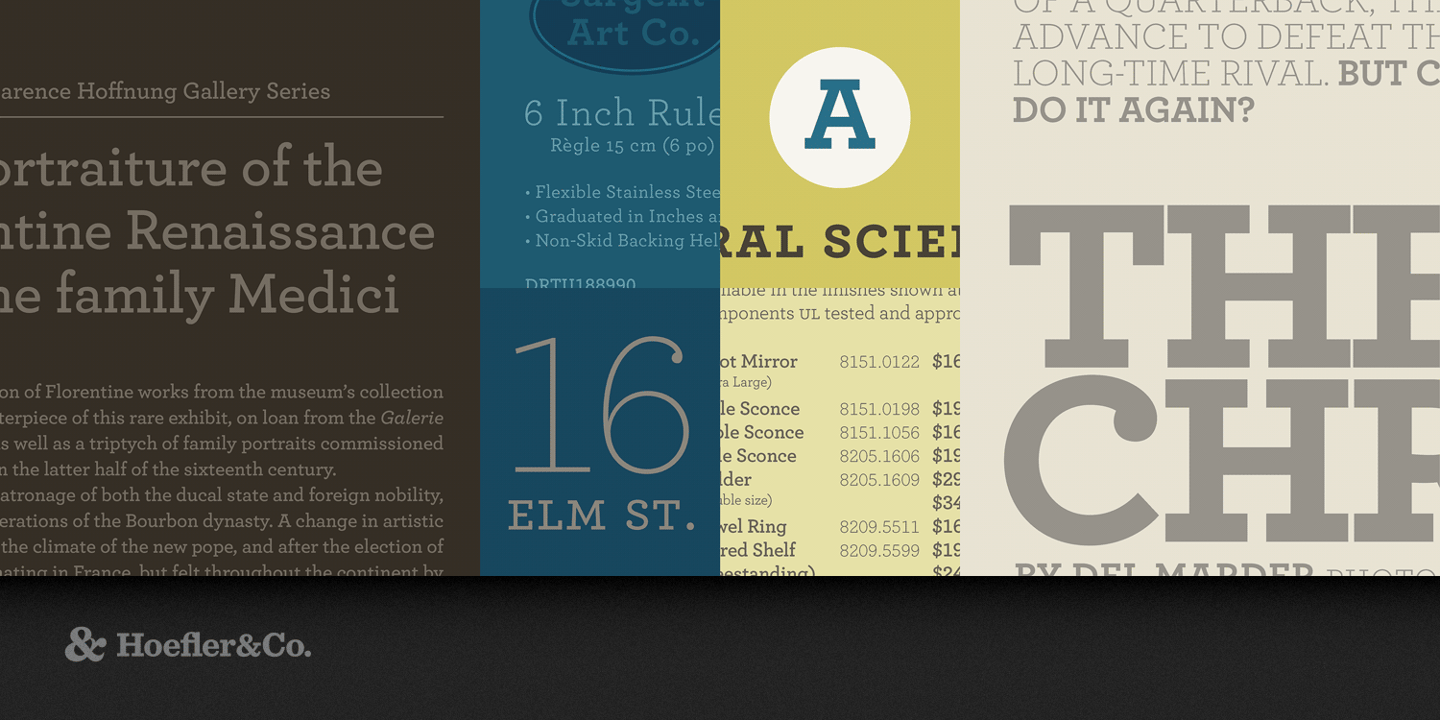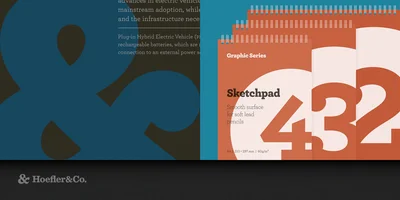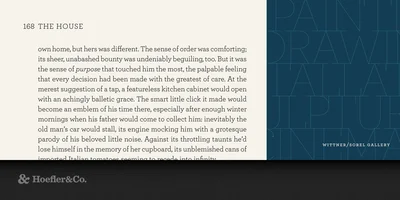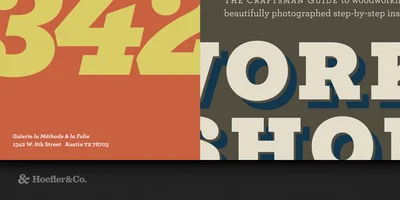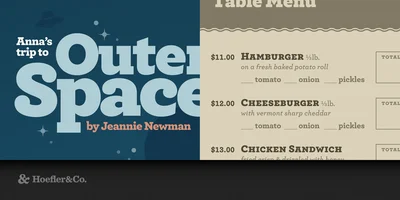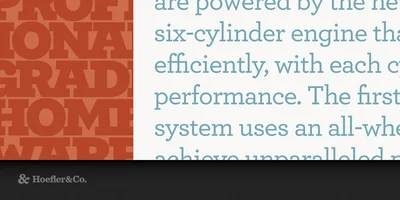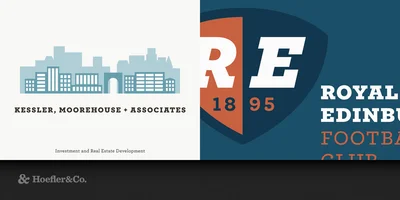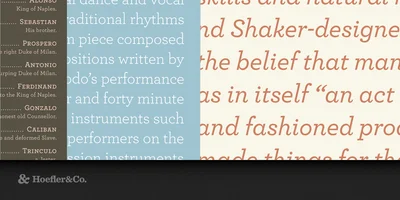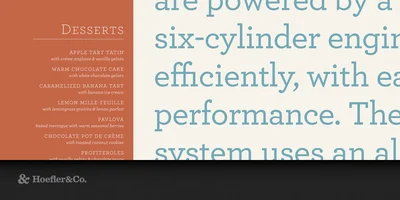
Arvo vs Archer
Here’s how Arvo compares to Archer when you care about day-to-day usability more than pedigree. With 88% similarity, Arvo shares Archer's distinctive friendly character through similar ball terminals on letters like 'a', 'c', 'f', and 'r'. If you want the same structure with a friendlier vibe, Arvo usually gets you there.
| Feature | Arvo | Archer |
| Weights | 400, 700 | Multiple |
Recommended: Arvo
- Shares Archer's warm character
- Particularly suited for lifestyle branding and food and hospitality
- Delivers a friendly, warm, approachable aesthetic
- Popular in education-academia and healthcare-medical design
- Rated as an easy replacement
Consider: Archer
- Designed specifically for branding and editorial